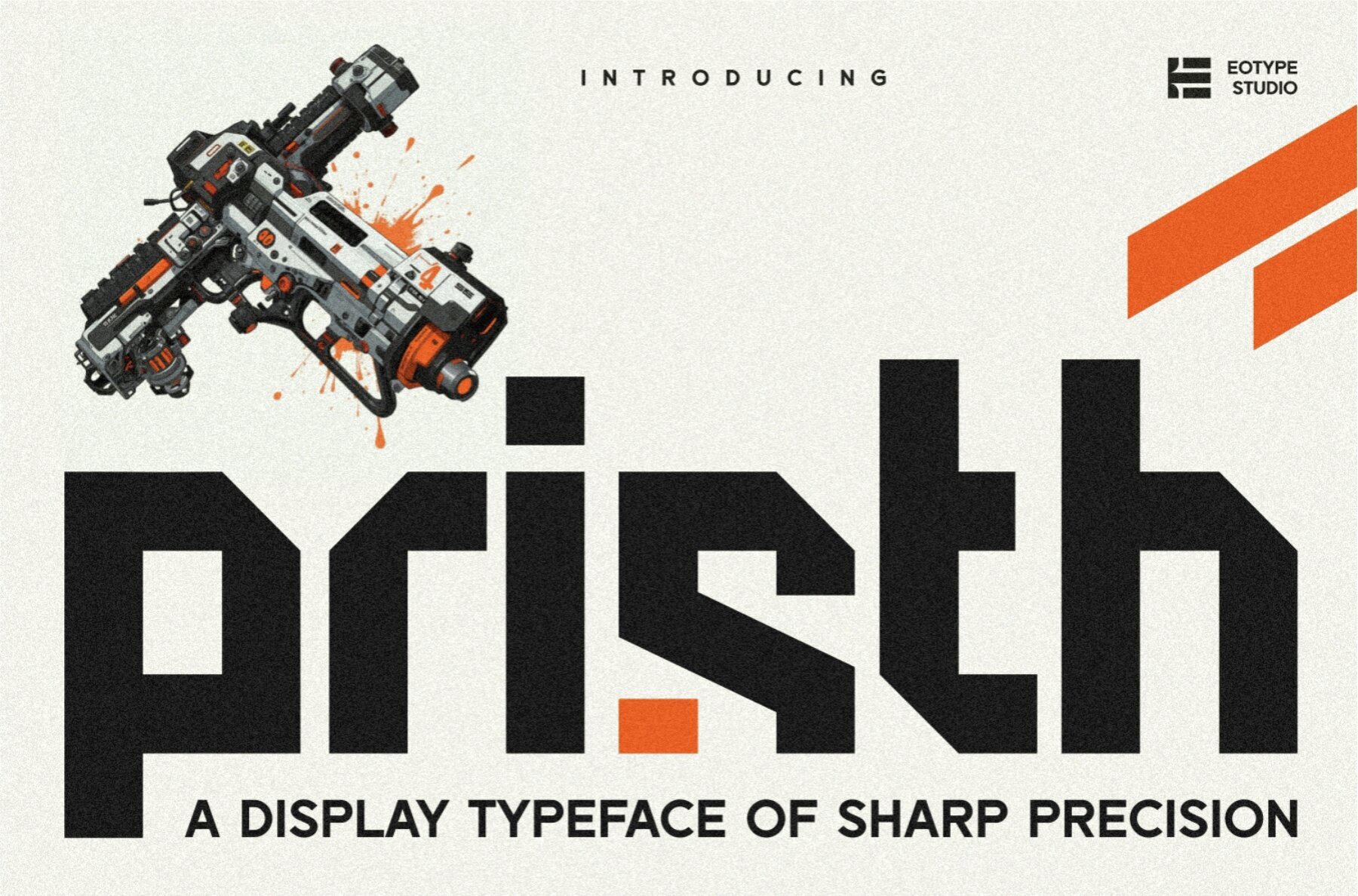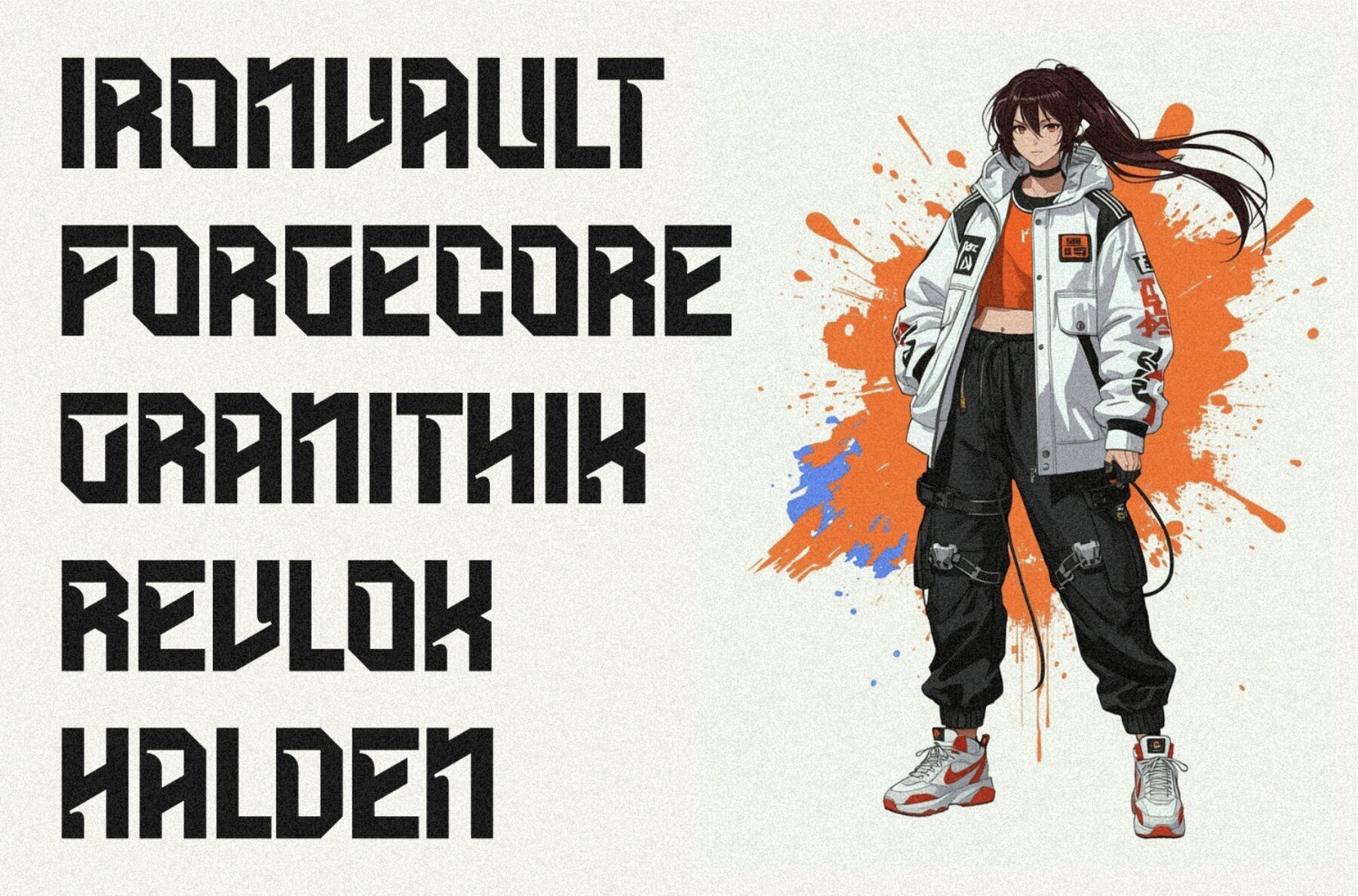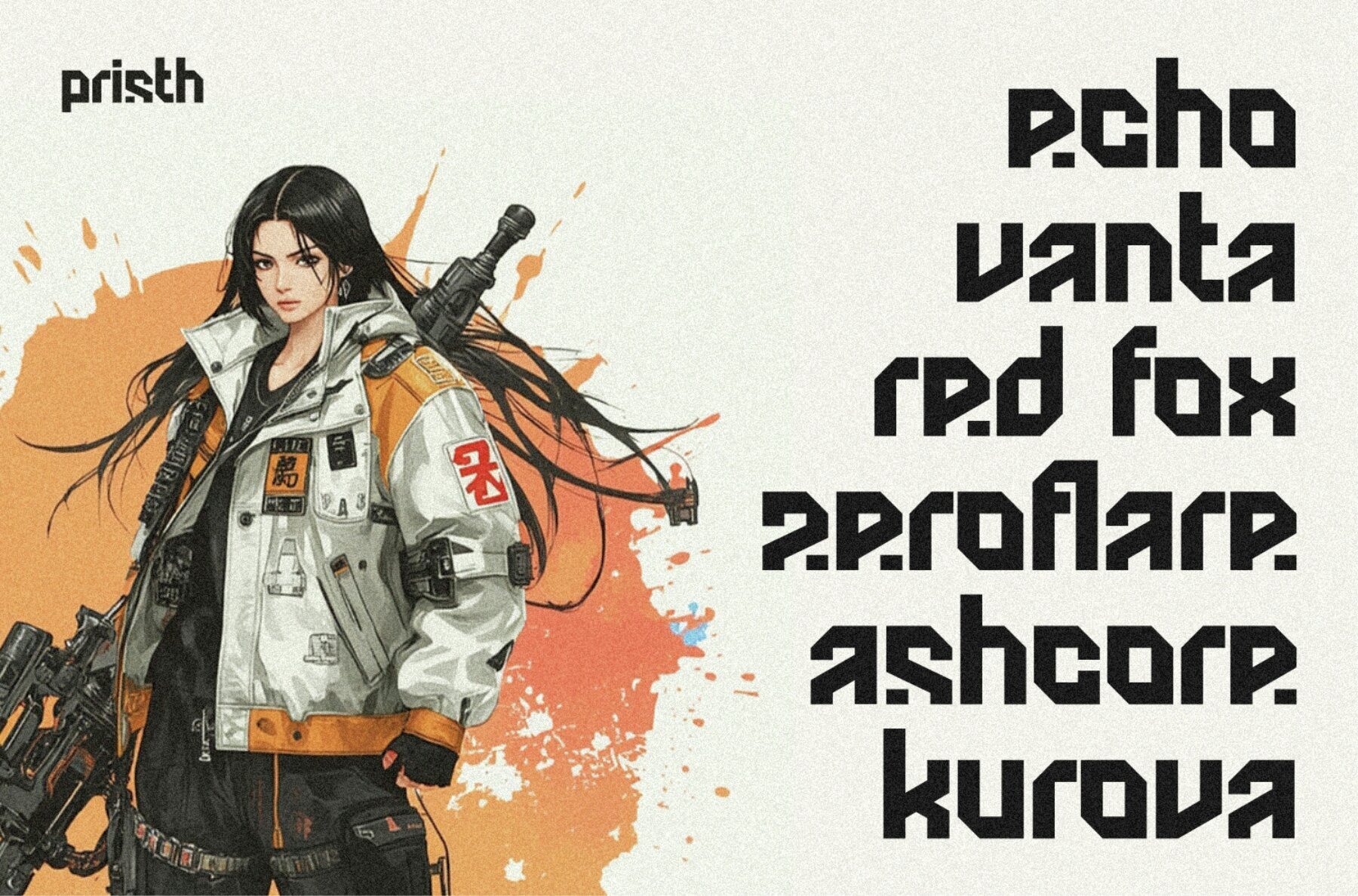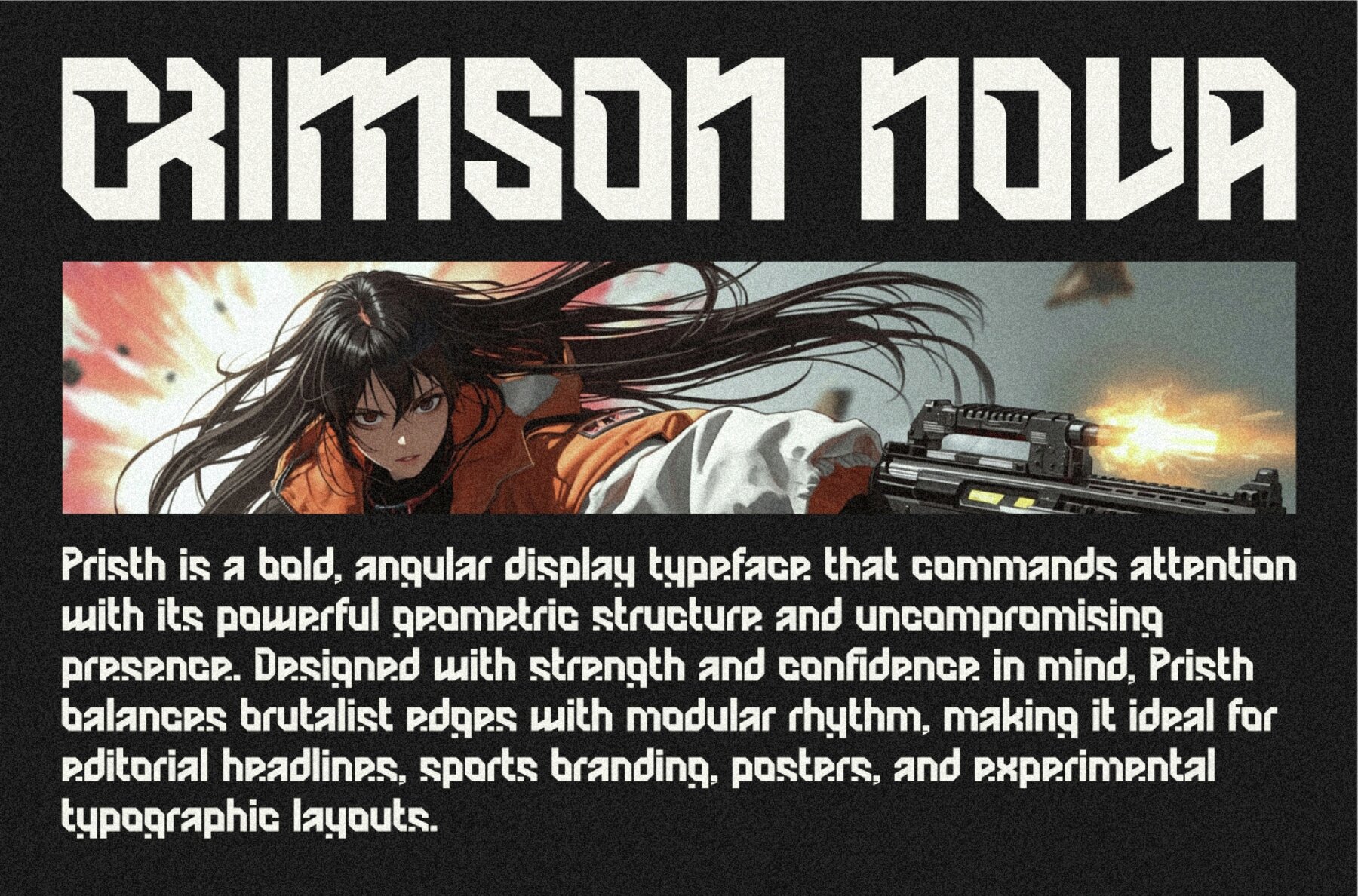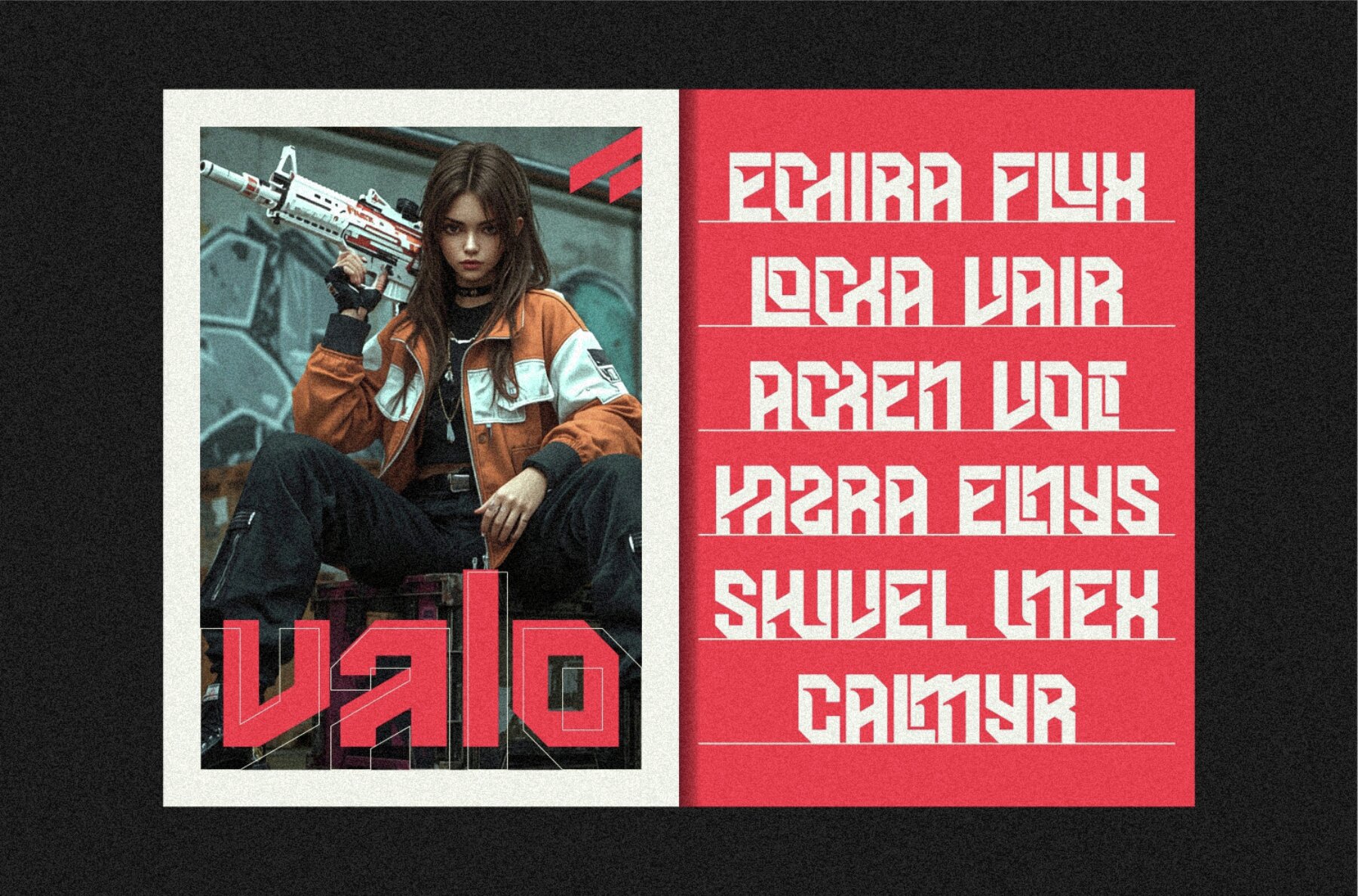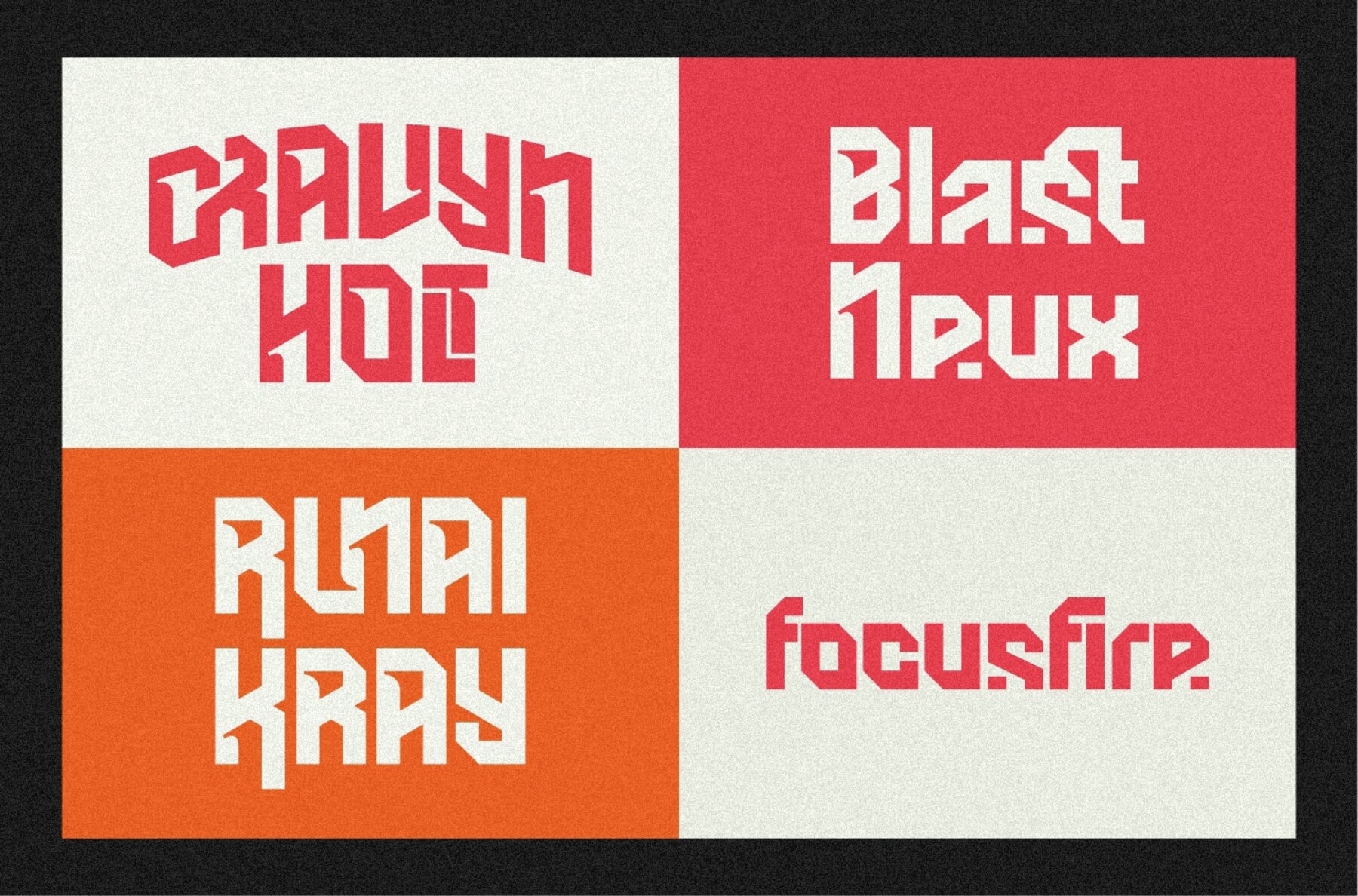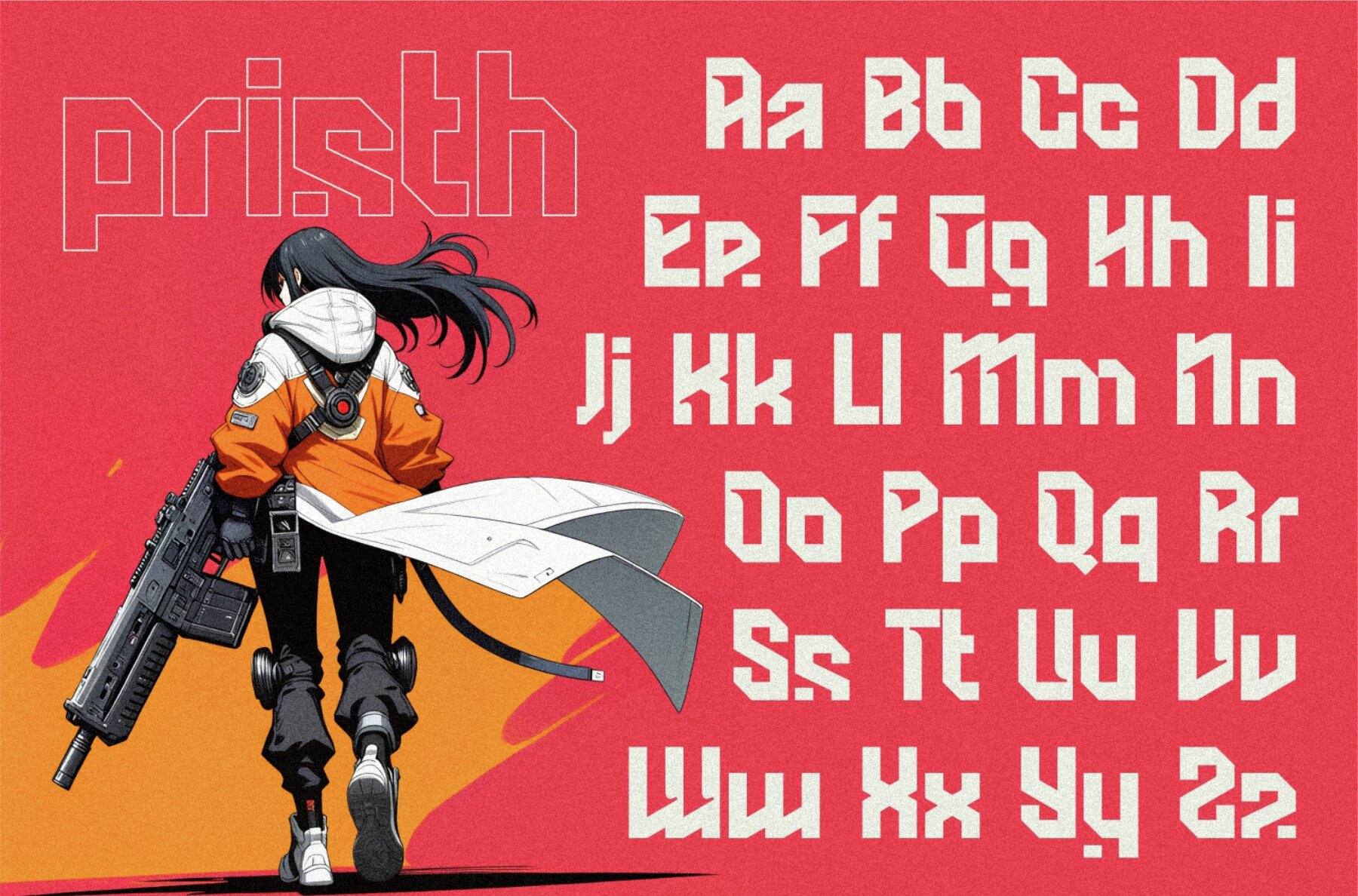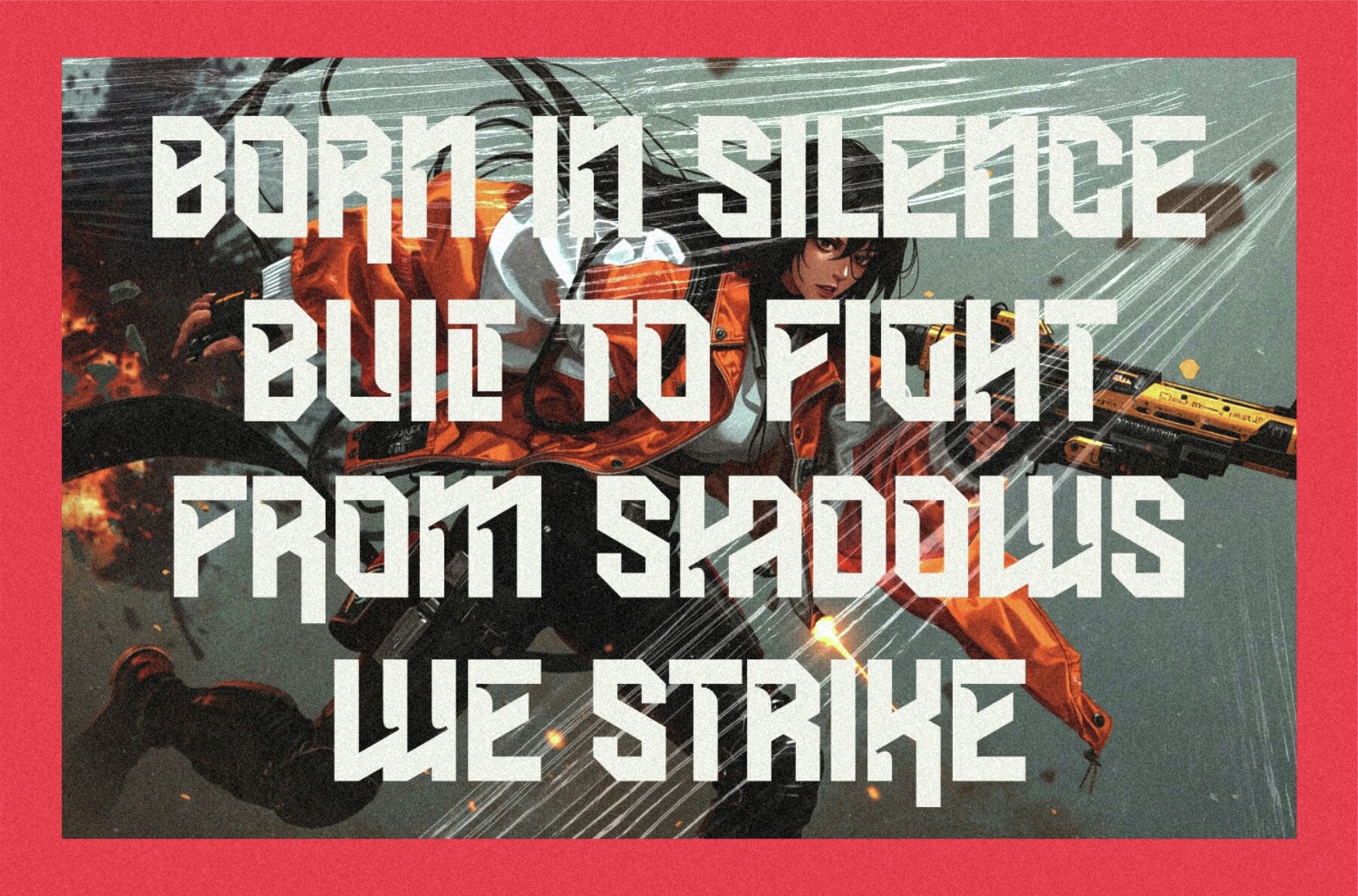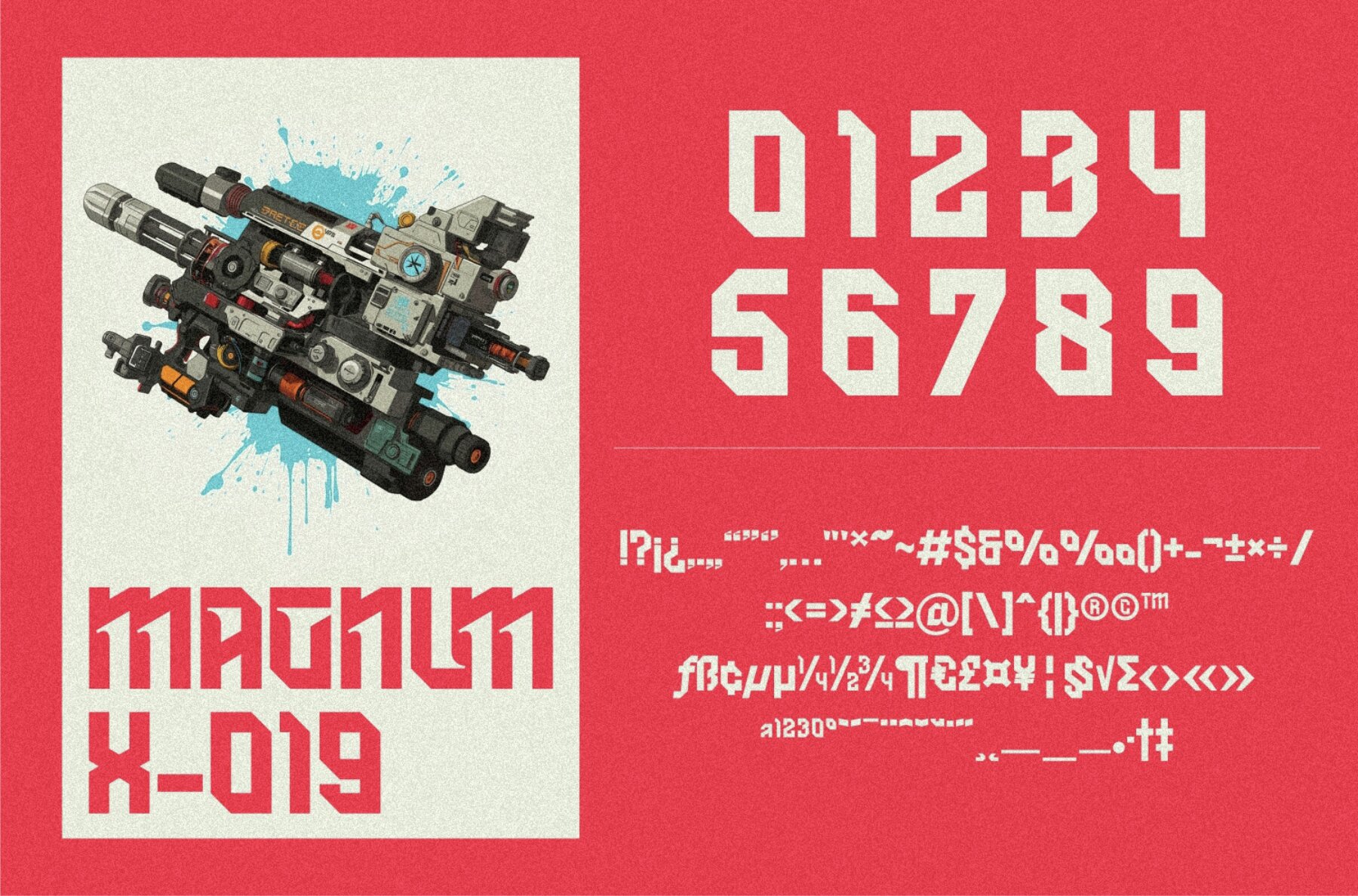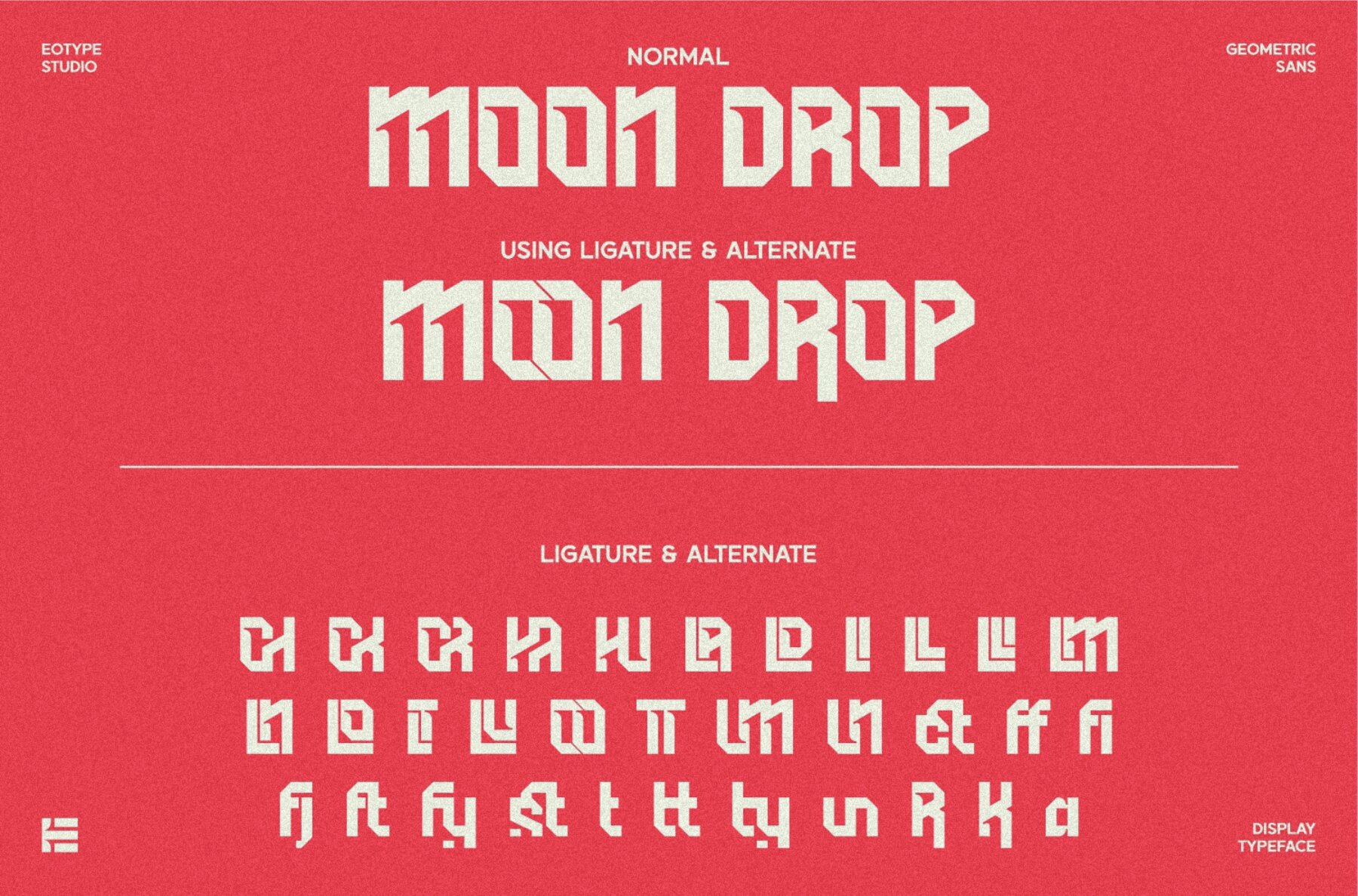
Pristh Font
Pristh
Discover Pristh, a striking display typeface by eotype Studio that demands attention with its dynamic geometric structure and strong presence. Pristh expertly merges bold, brutalist edges with a modular rhythm, making it perfect for editorial headlines, sports branding, posters, and experimental typographic layouts. Designed with confidence, this typeface shines in any setting where a powerful statement is essential.Pristh: Bold Angular Display Typeface